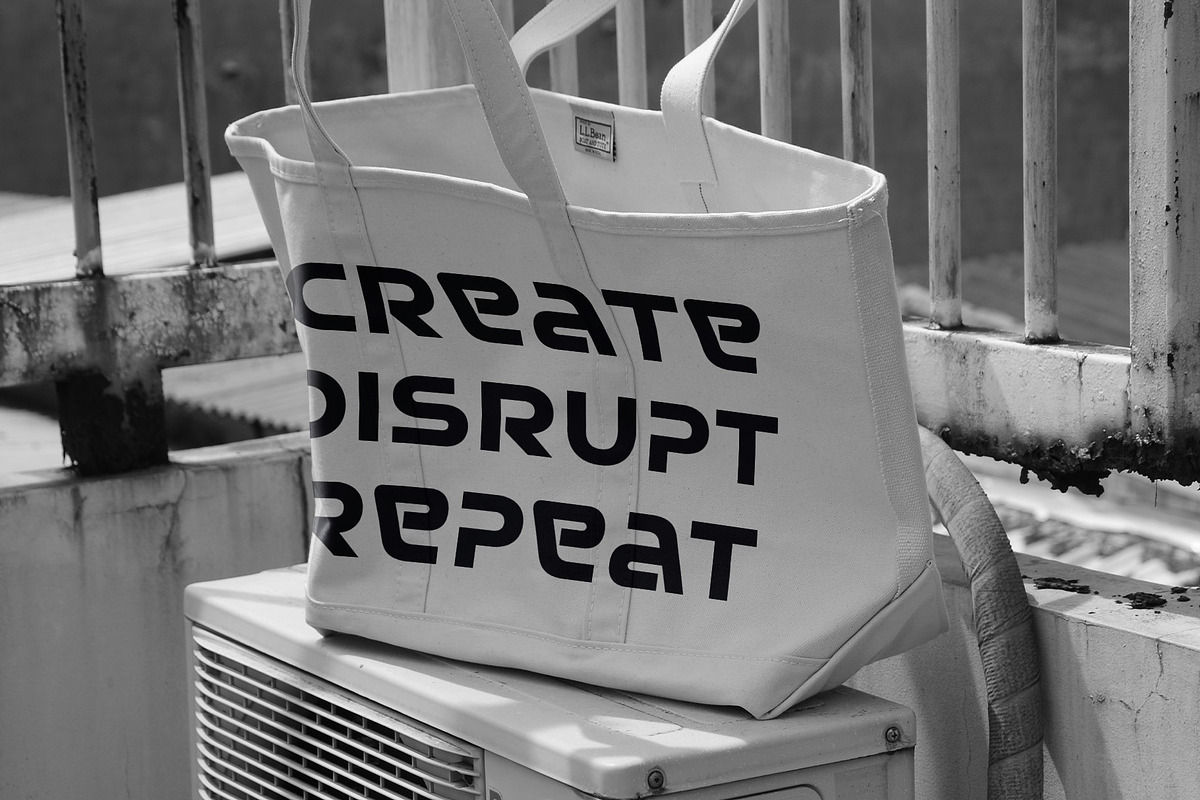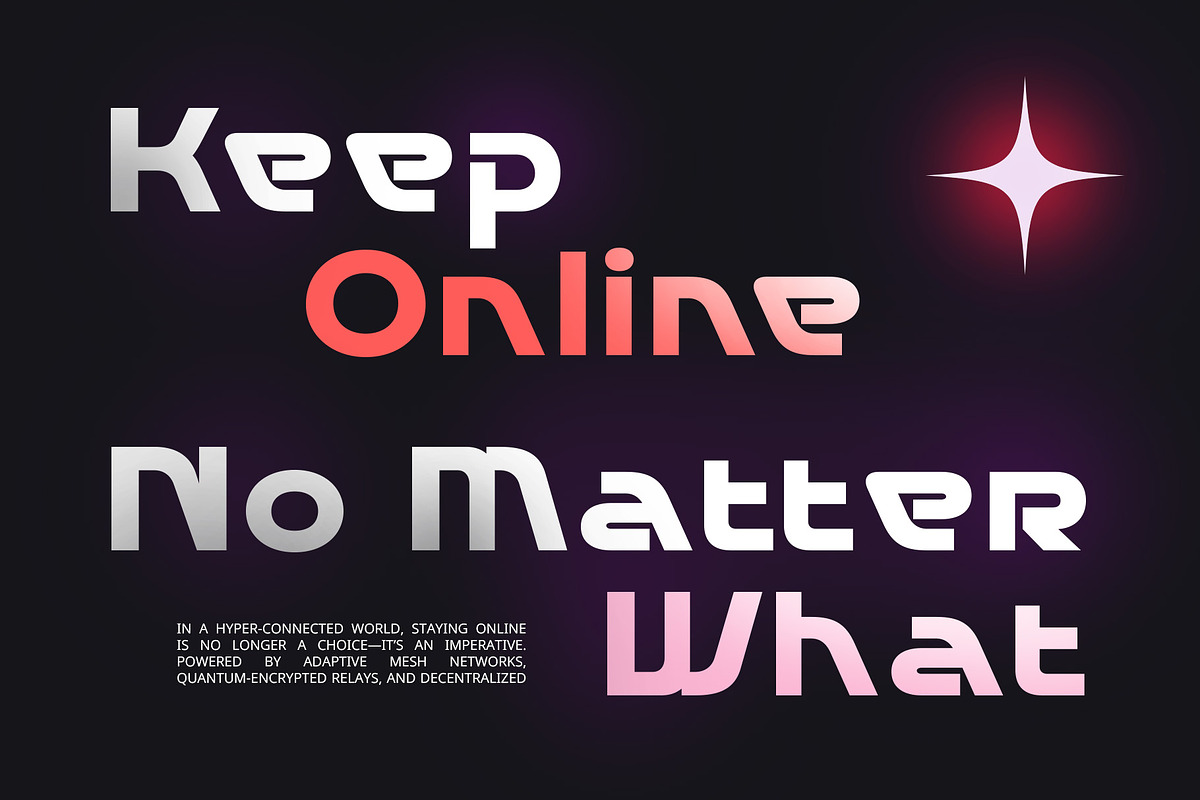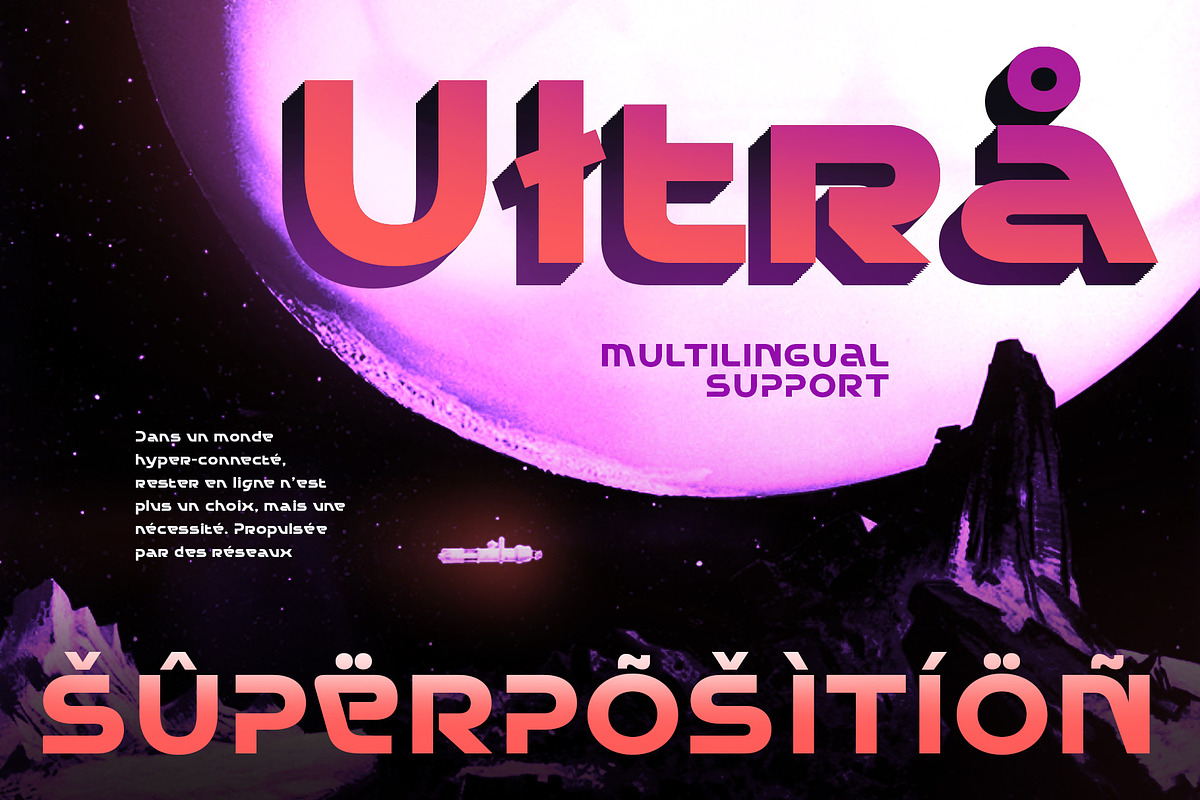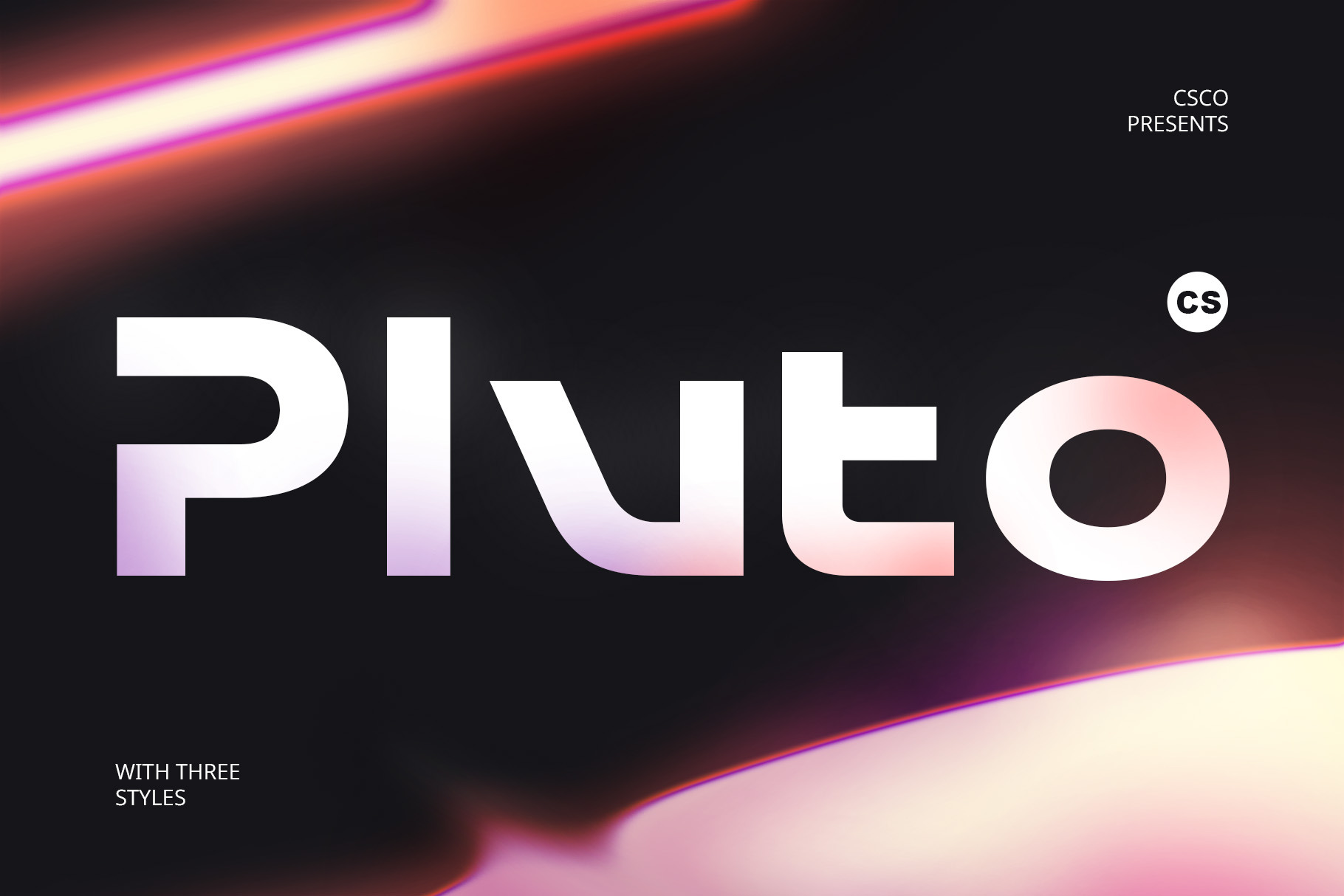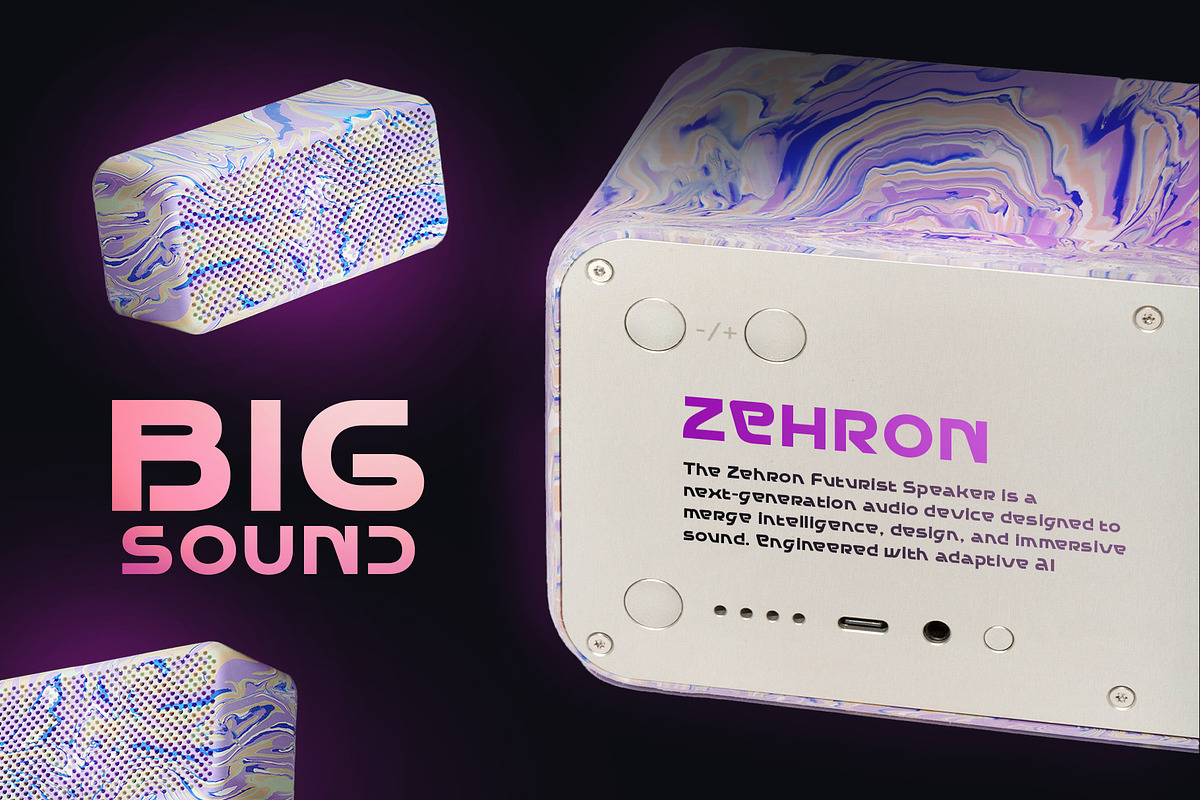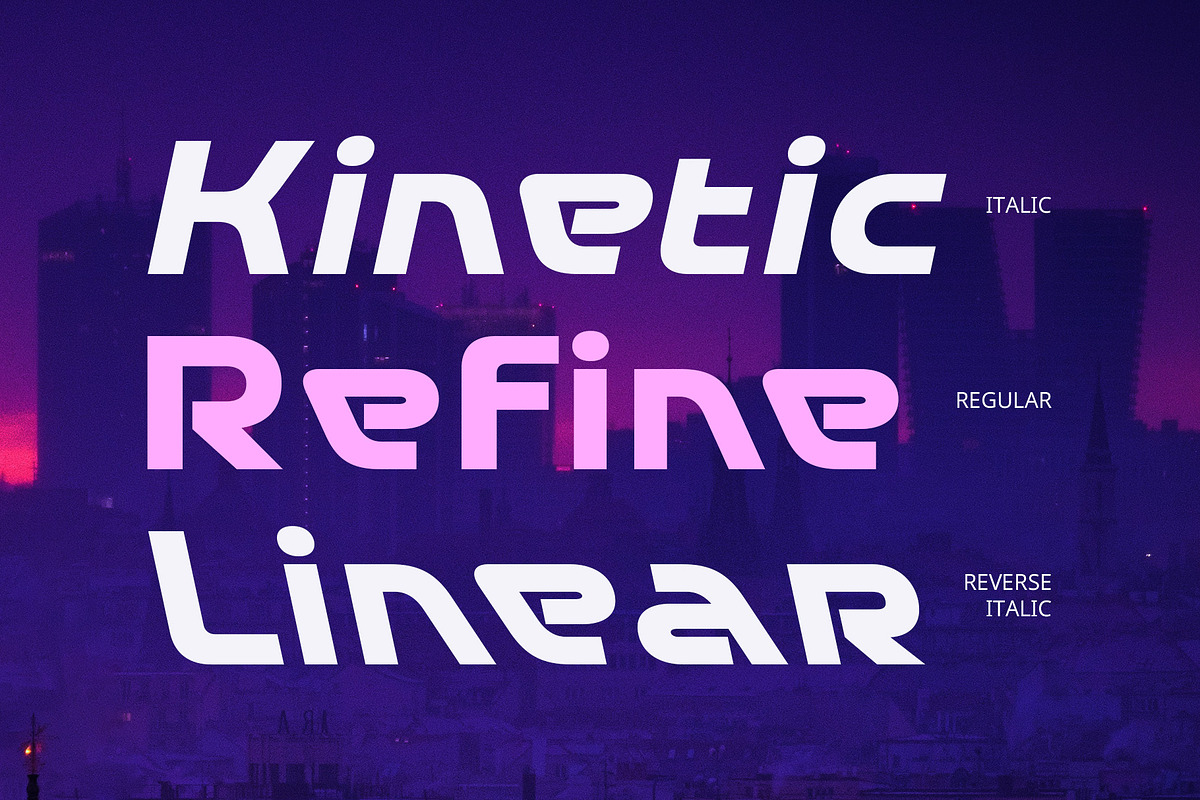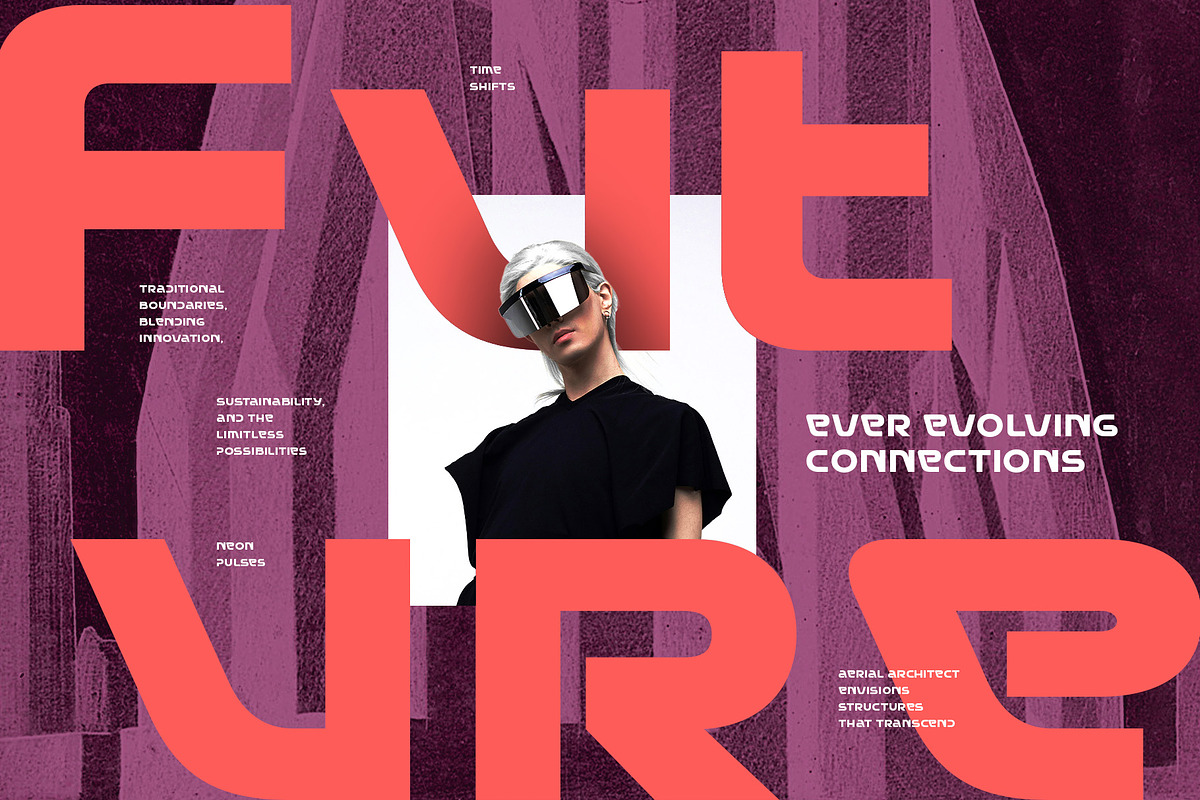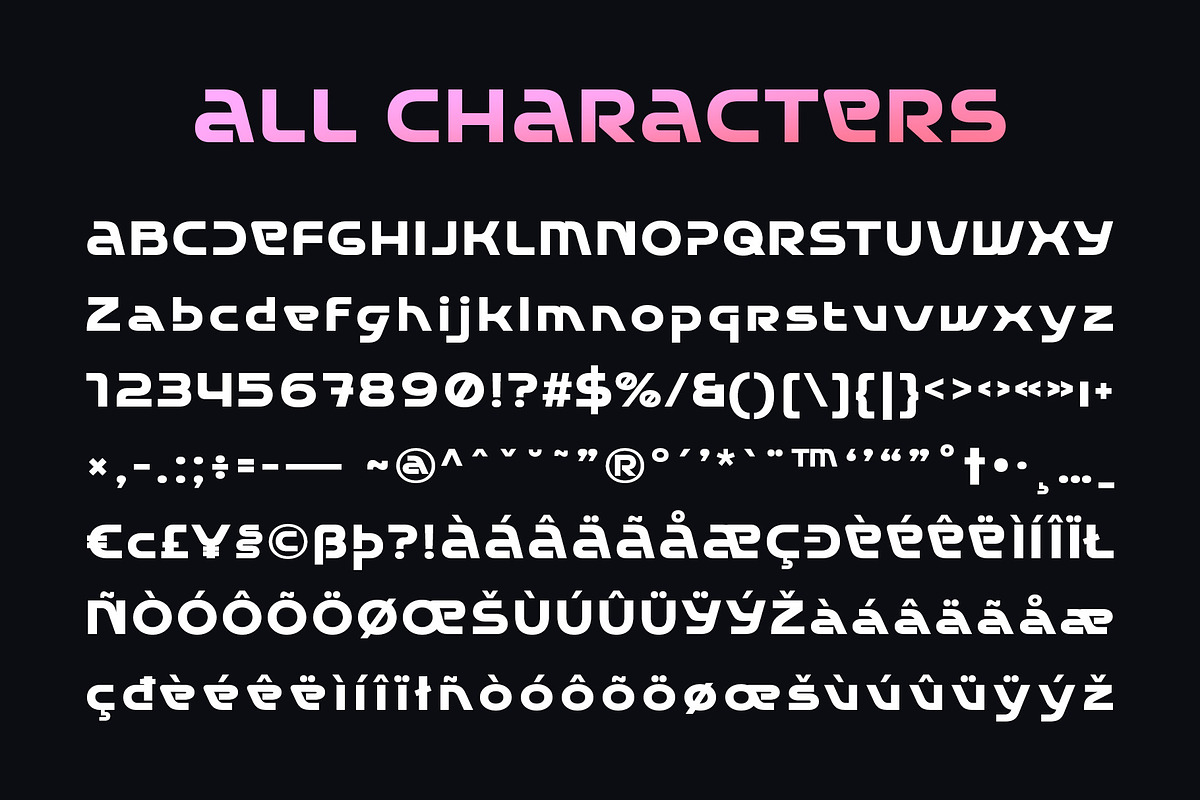
CS Pluto – Futuristic Font
CS Pluto – A Bold Futuristic Display Font
Sharp, Geometric, and Futuristic Design CS Pluto is a modern sans-serif display font with a bold, futuristic shape, featuring strong, sharp lines and geometric proportions. Its structured and high-tech appearance captures the essence of innovation, speed, and progress, making it a perfect choice for cutting-edge digital applications, sci-fi branding, and forward-thinking visual identities.
Perfect for Sci-Fi and Gaming Aesthetics With its sleek angles and striking edges, CS Pluto embodies the spirit of sci-fi, gaming, and cyberpunk themes. Its dynamic and edgy letterforms create a sense of movement and energy, making it ideal for game interfaces, esports branding, futuristic posters, and technology-driven projects.
Ideal for Technology and Innovative Branding Designed for forward-thinking projects, CS Pluto is well-suited for tech startups, space-themed visuals, digital advertisements, and high-tech product packaging. Its modern, streamlined structure adds a cutting-edge look to any brand or visual identity, making it a top choice for companies looking to convey modernity, efficiency, and progressiveness.
Striking, Edgy, and Forward-Thinking CS Pluto’s bold yet minimalistic aesthetic offers a perfect balance between readability and avant-garde design. The futuristic details enhance its sleek, contemporary feel, making it an excellent font for posters, websites, futuristic fashion branding, and experimental typography. For designers aiming to push creative boundaries, CS Pluto delivers a strong, innovative, and visually powerful impact.